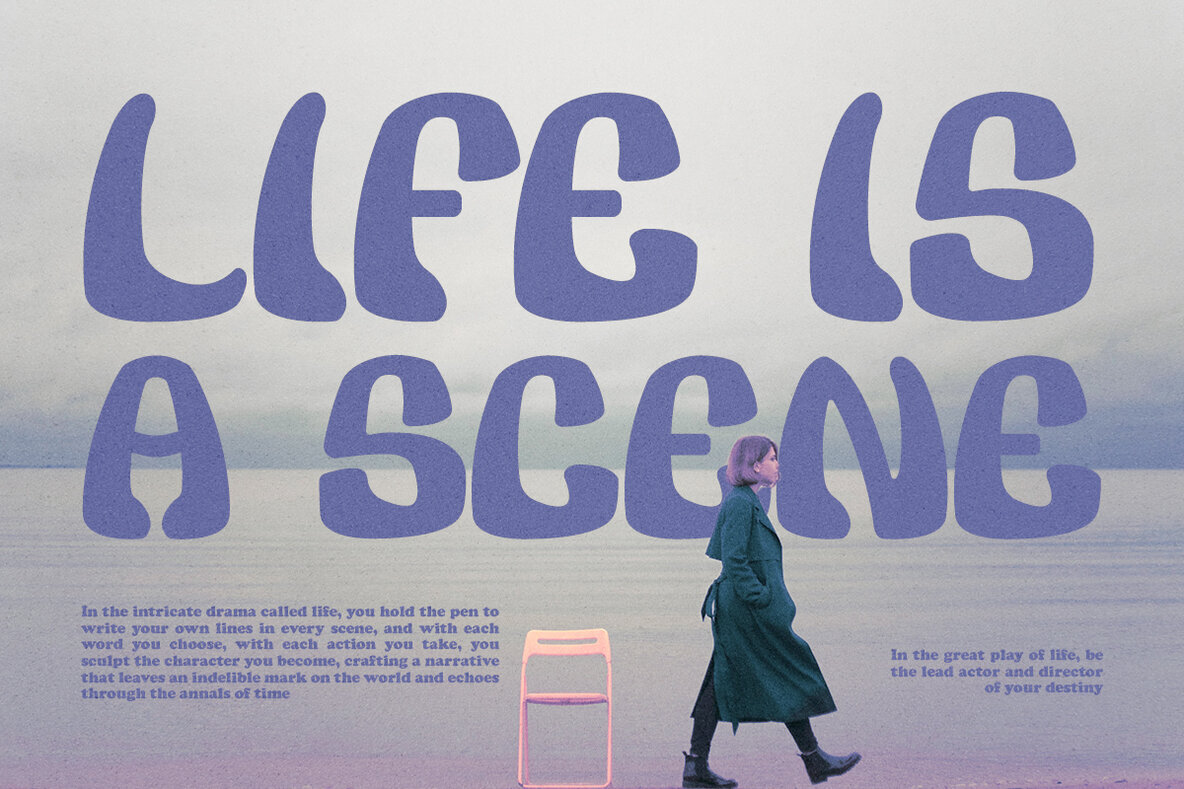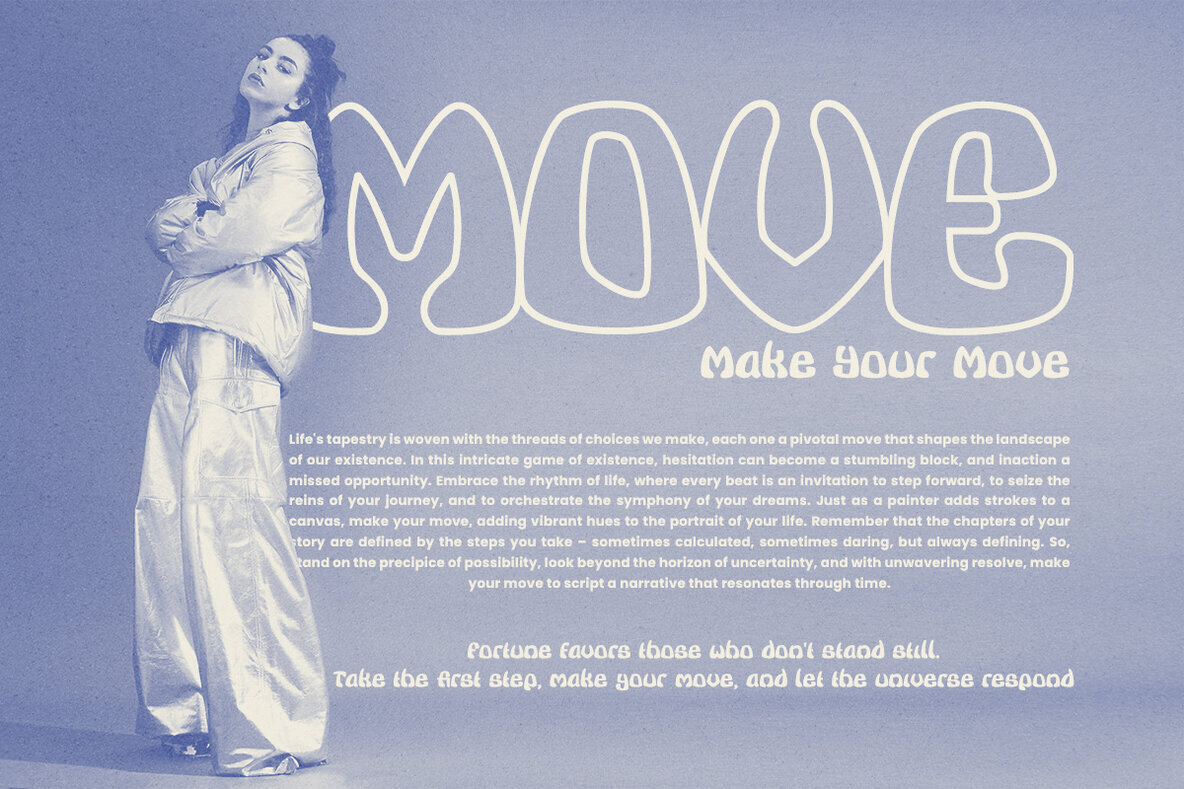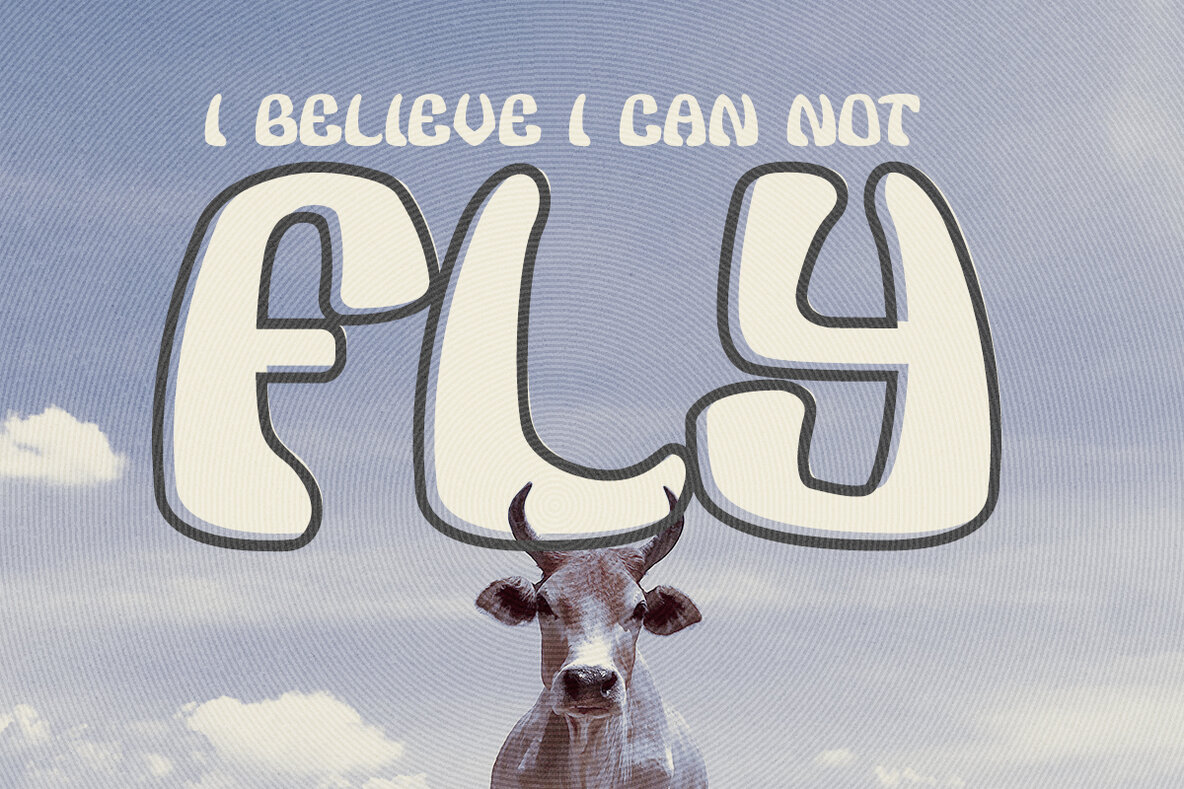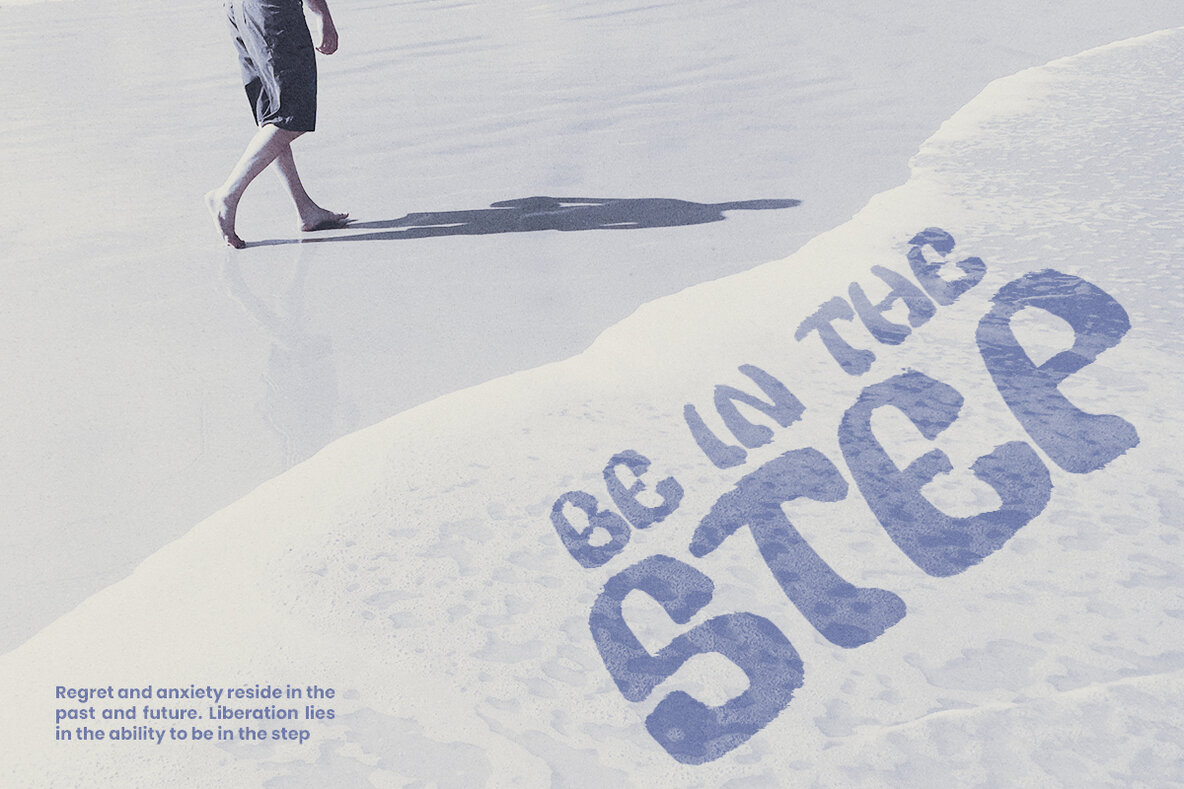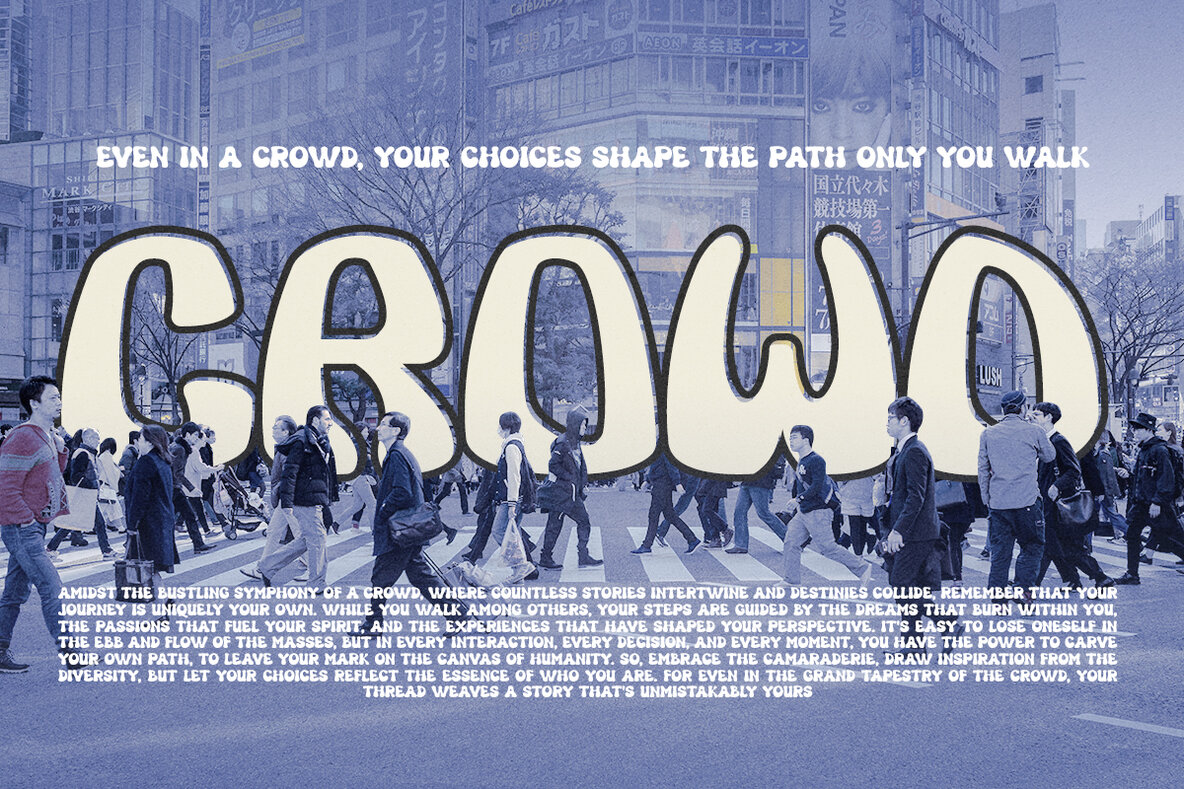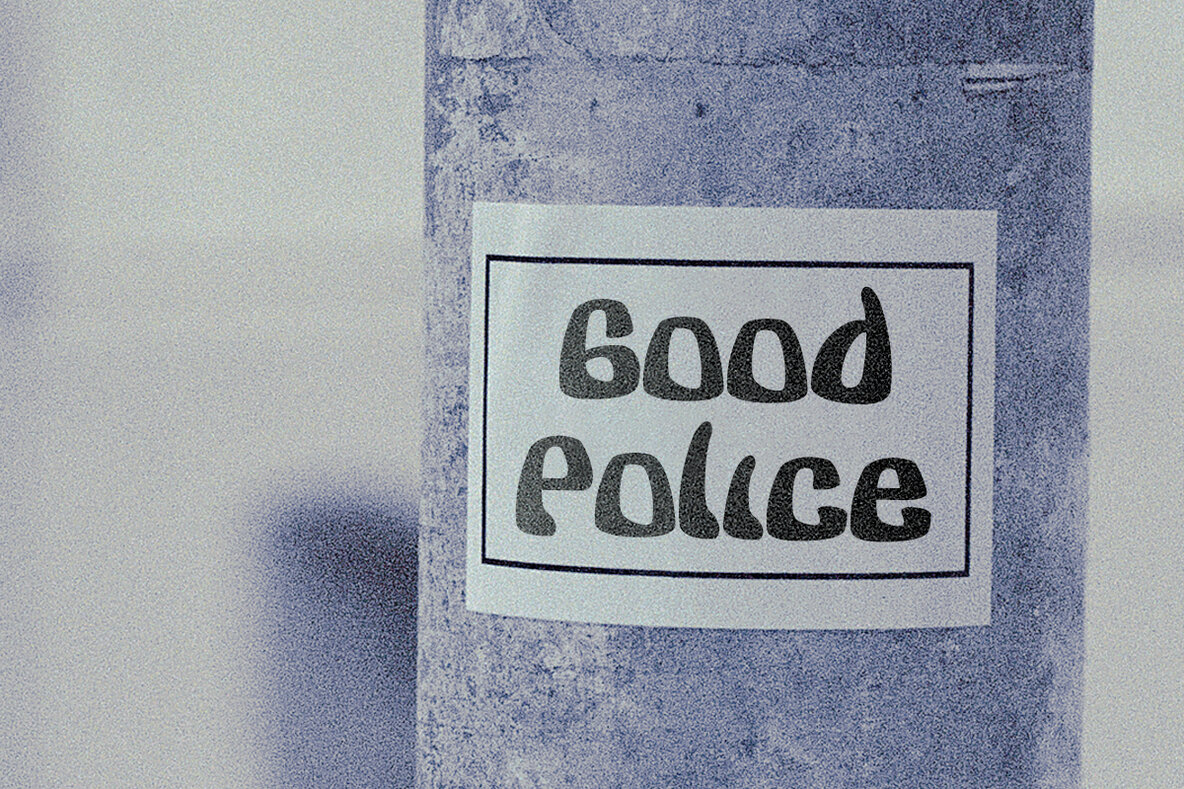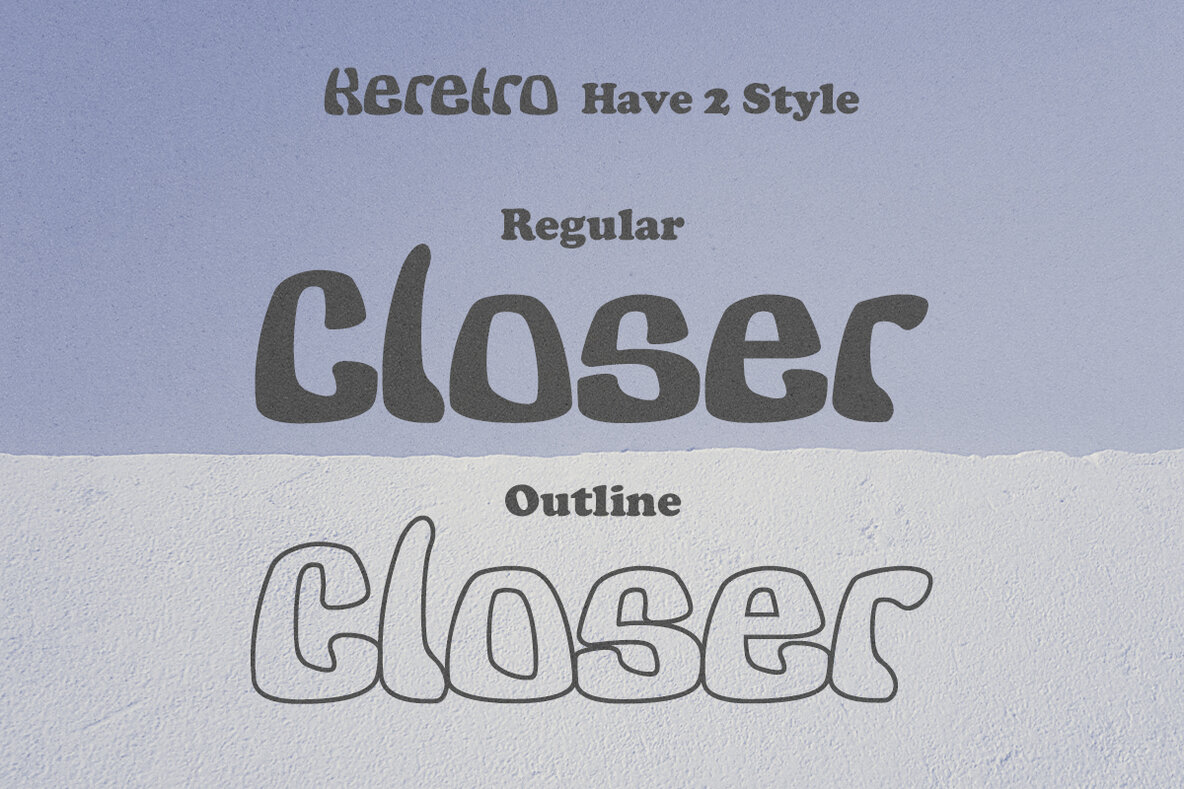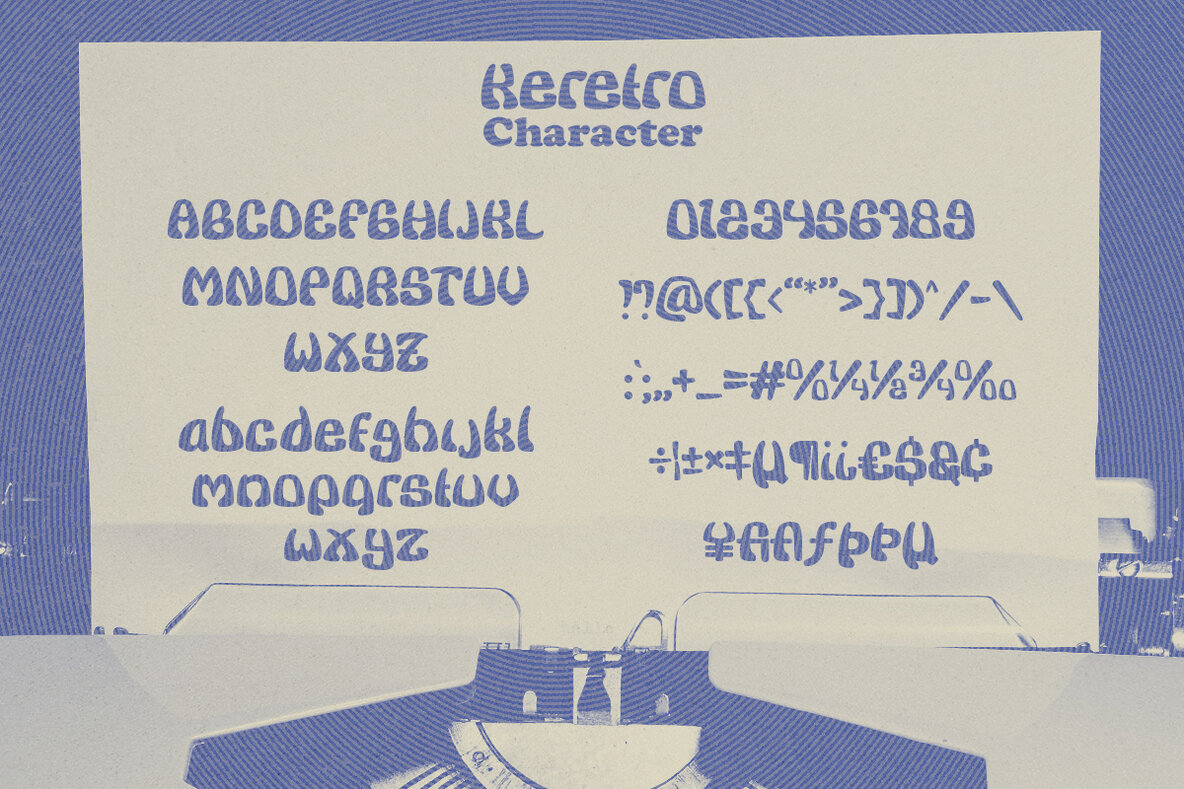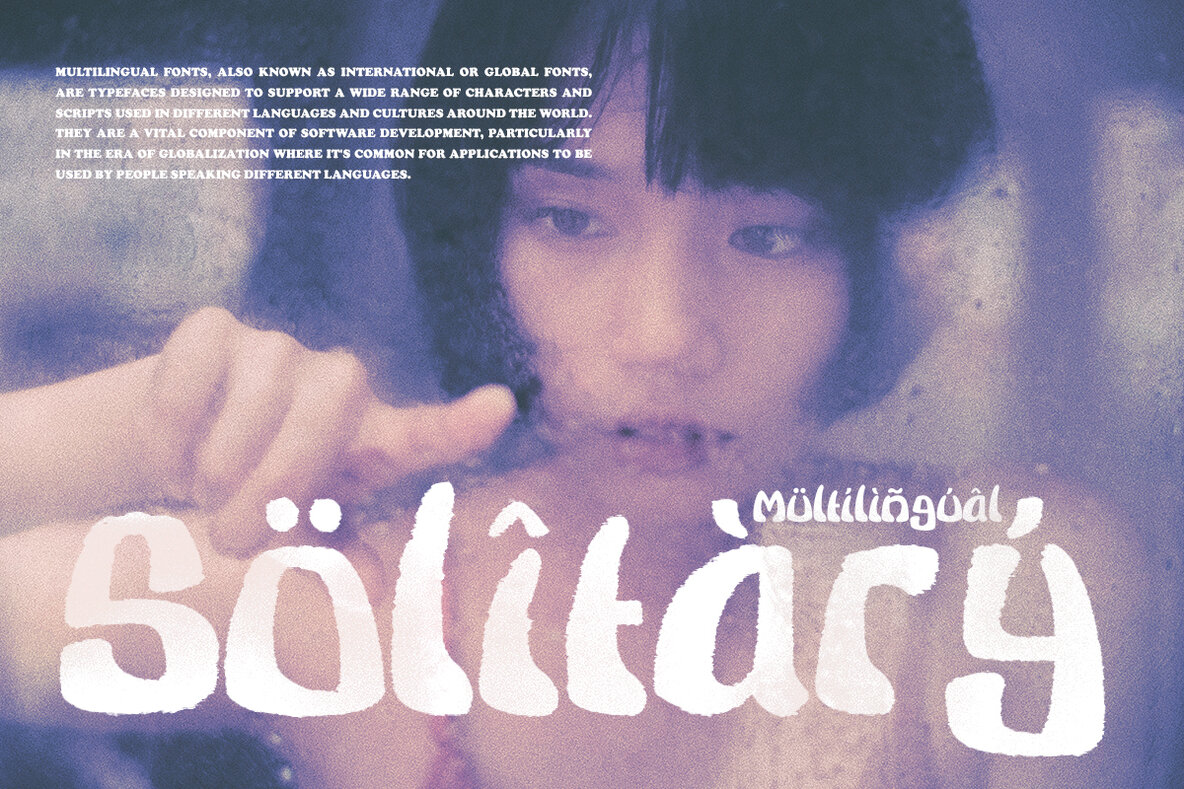
Keretro Font
Get ready to groove with our latest creation, Keretro font! Keretro transports you to the golden era of the past, evoking a sense of nostalgia that resonates with pop culture enthusiasts. Seamlessly blending boldness and authenticity, they captivate the hearts of your audience, adding a unique and irresistible touch to your brand identity.